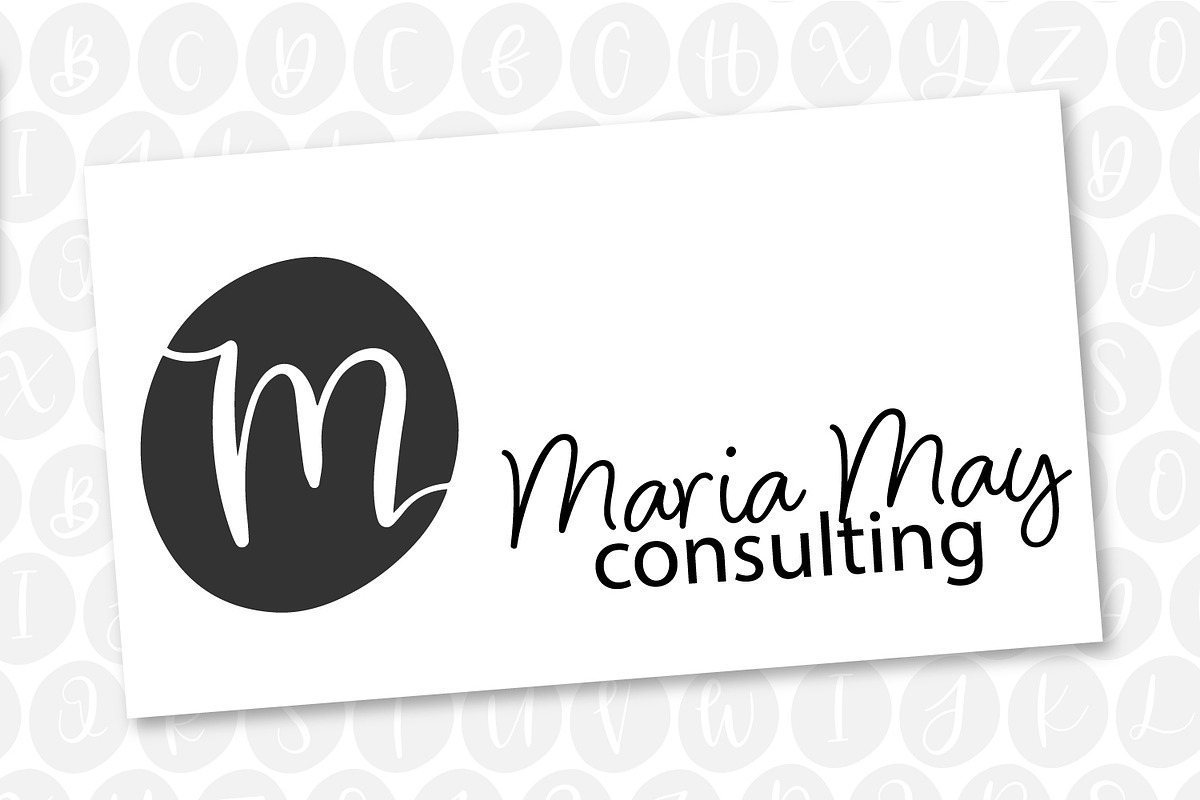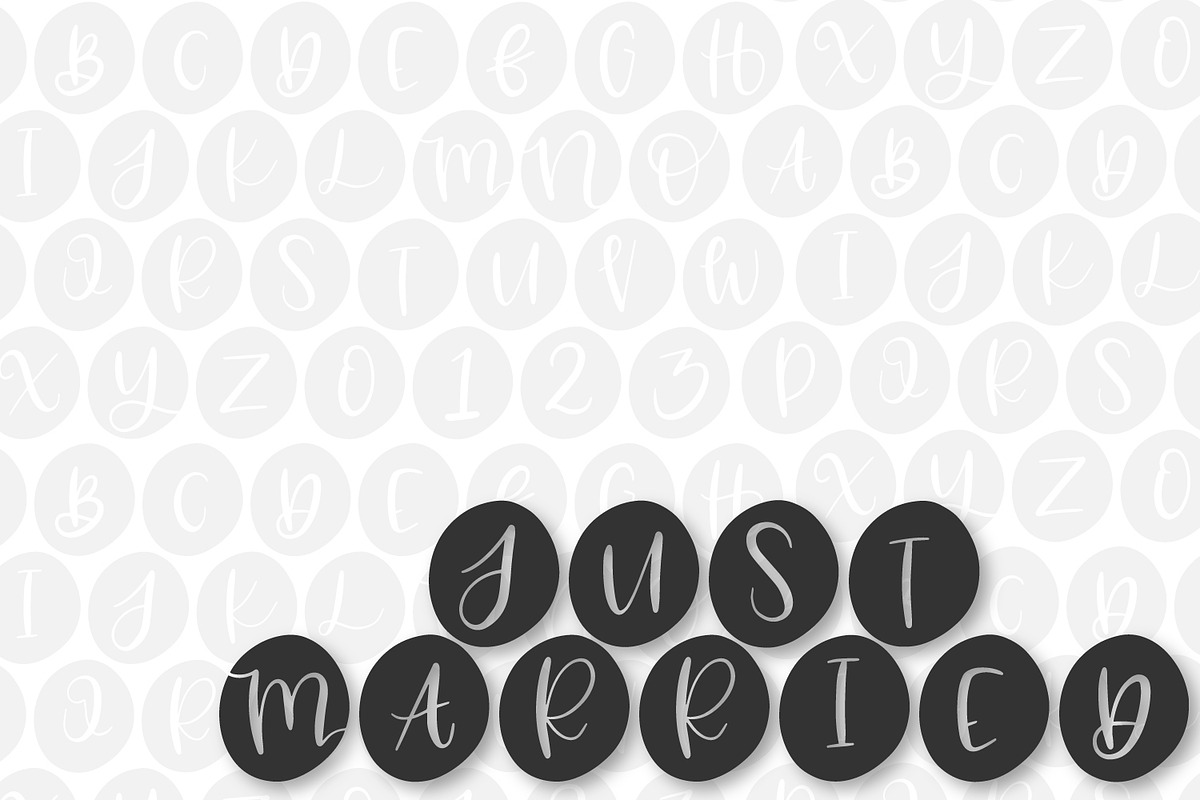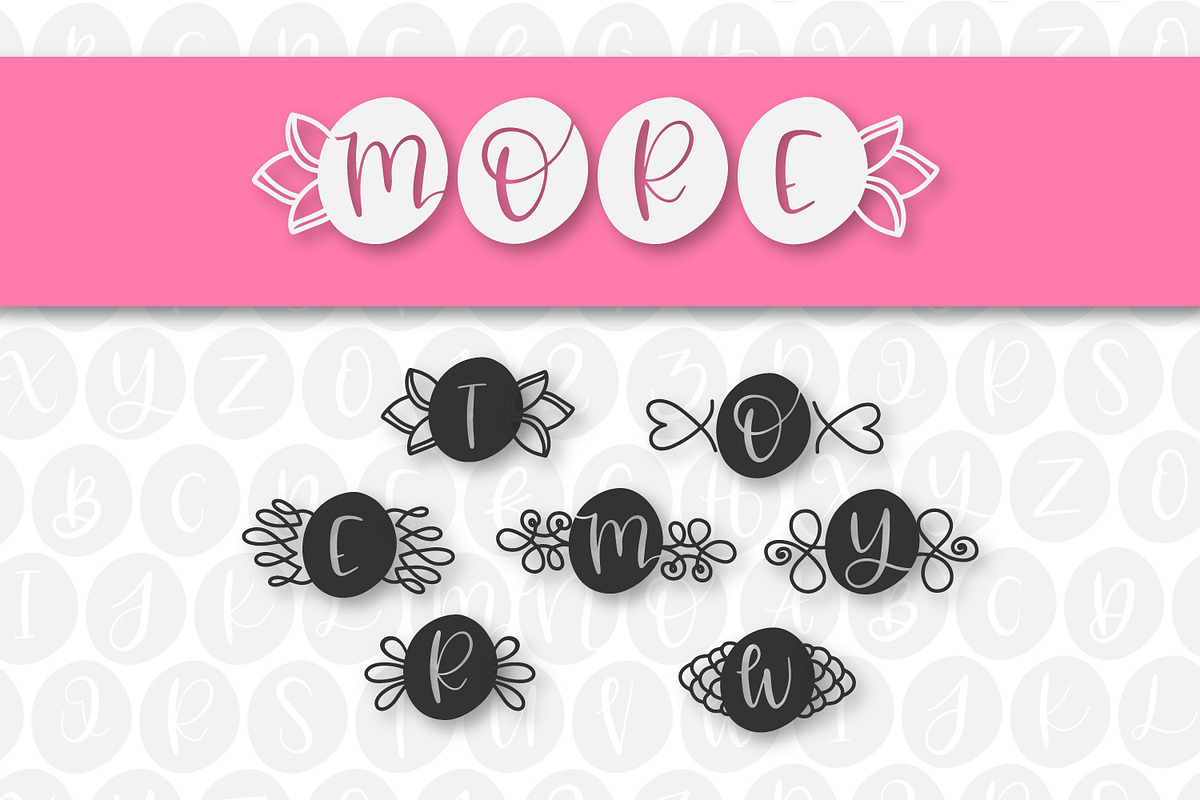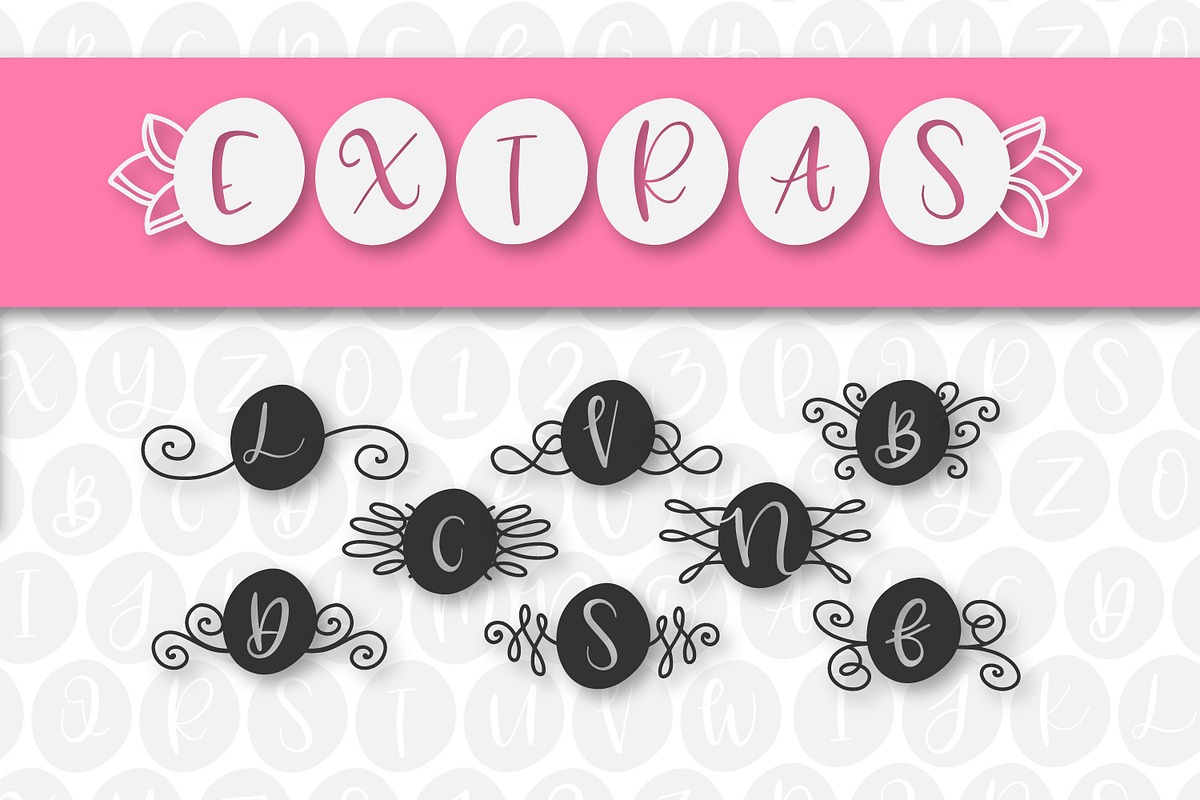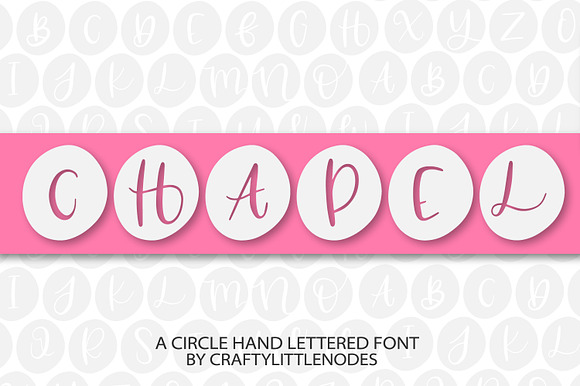
Chapel - A Circle Hand Lettered Font
Why Chapel - A Circle Hand Lettered Font is worth a look
Chapel - A Circle Hand Lettered Font by CraftyLittleNodes fits naturally into Branding, posters, packaging, typography.